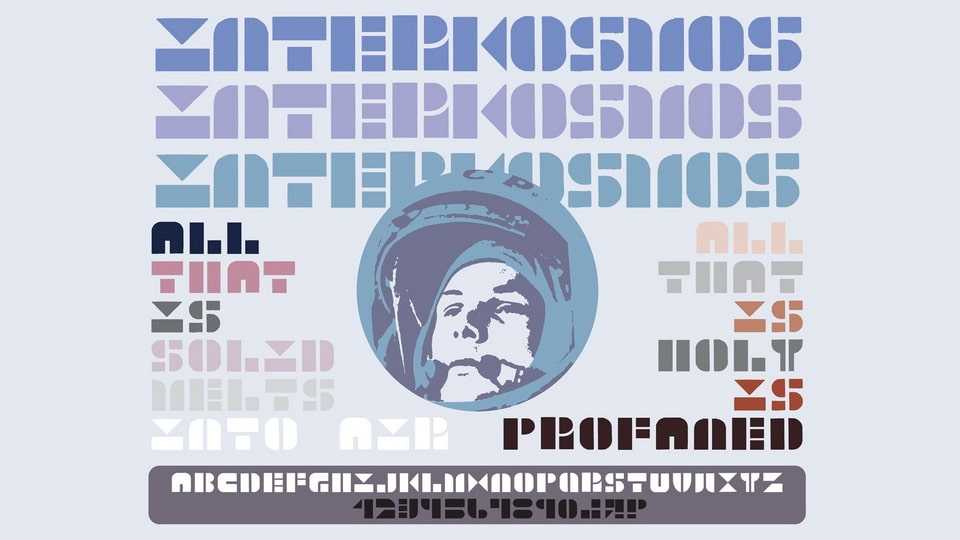
Download Interkosmos font, a science fictional typeface that was derived by the “70s-era decorative work of Brutalist architect Klaus Franz”. The font features sharp angles, rugged lines, and an industrial aesthetic that evokes a futuristic yet retro atmosphere.